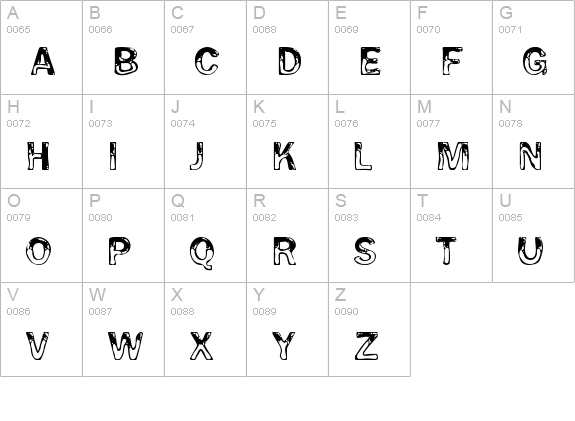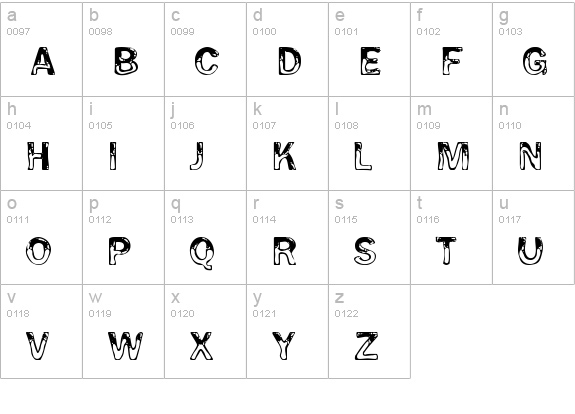
Introducing Wet Pet font, a whimsical and playful typeface that will add a splash of fun to any design project. With its curved and flowing letters, this font captures the essence of water, making it perfect for anything related to aquatic themes, pets, or children's designs. But what sets Wet Pet font apart from the rest is its versatility and accessibility. Not only does it come in a wide range of weights and styles, from light and airy to bold and vibrant, but it also offers a free version that is freely available to download at FontsMarket.com. Yes, you read that right - Wet Pet font is completely free! Now, you can dive into your creative projects without worrying about breaking the bank. Whether you're designing a logo for a pet store, creating an eye-catching poster, or crafting a playful invitation, Wet Pet font will bring your ideas to life with its charming and unique character. With its legible and distinct letterforms, Wet Pet font is easy to read in any size, making it suitable for both print and digital designs. Its smooth lines and cheerful personality will make your text pop, capturing the attention of your audience and leaving a lasting impression. So go ahead, make a splash with Wet Pet font. Download the free version today at FontsMarket.com and let your imagination flow. Whether you're a professional designer or a hobbyist, this font is sure to make a splash in your creative endeavors.